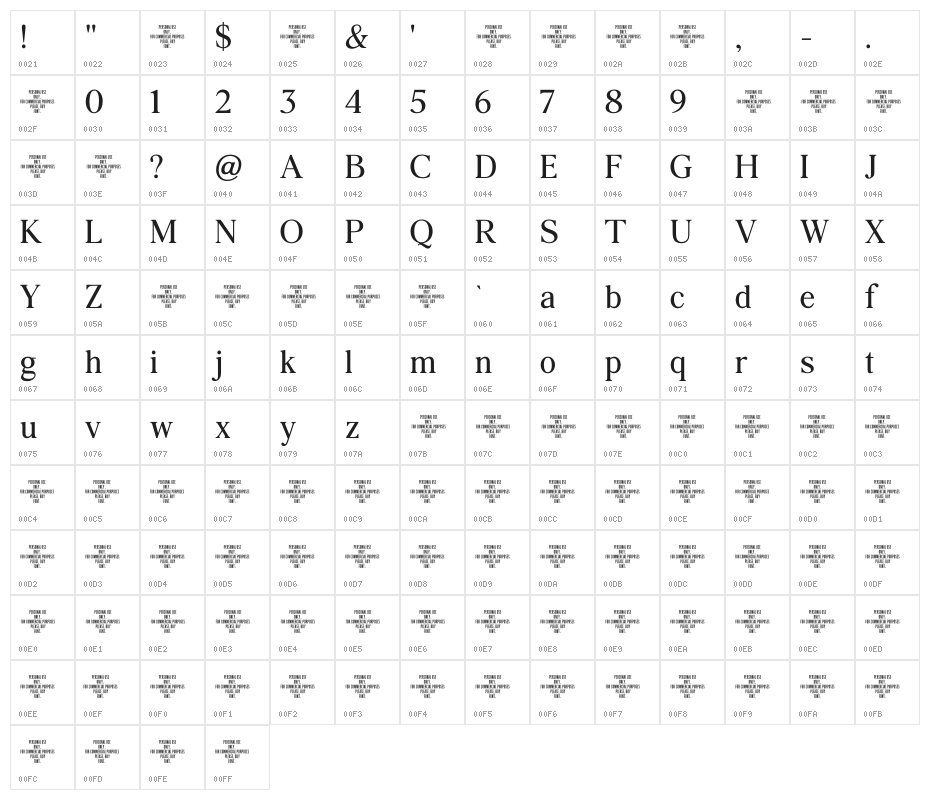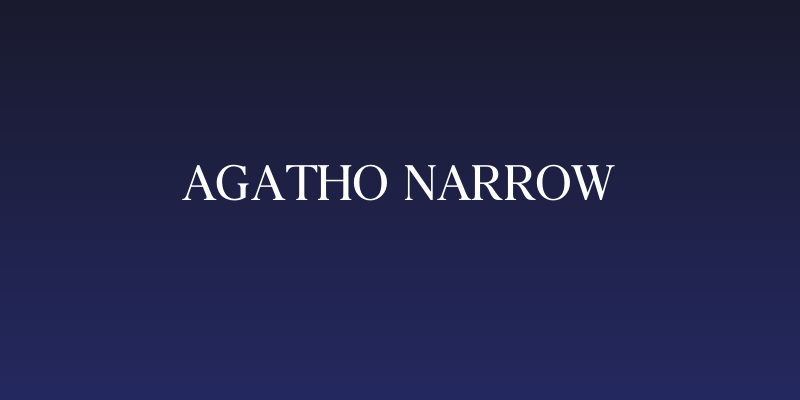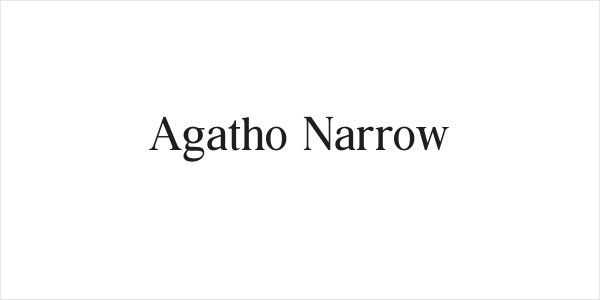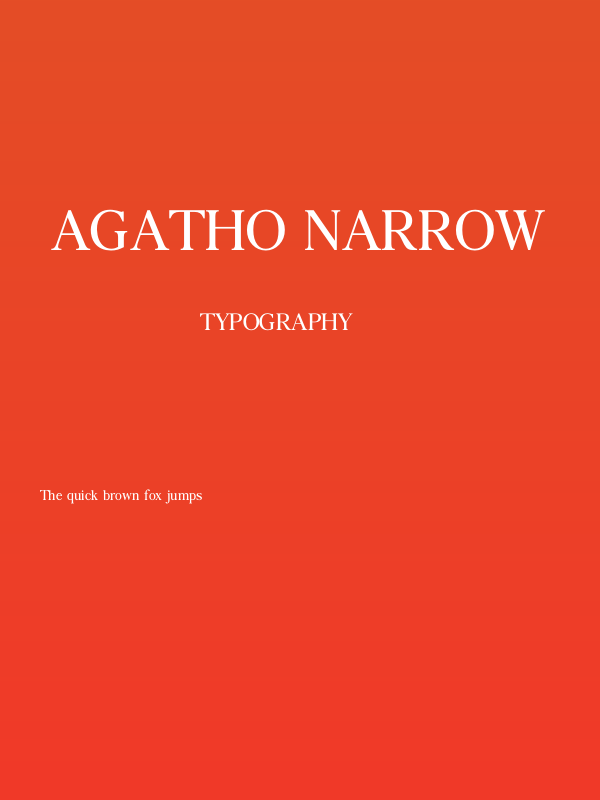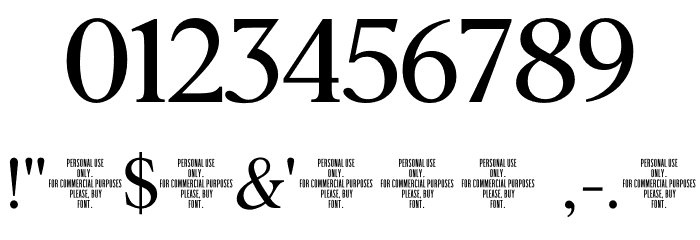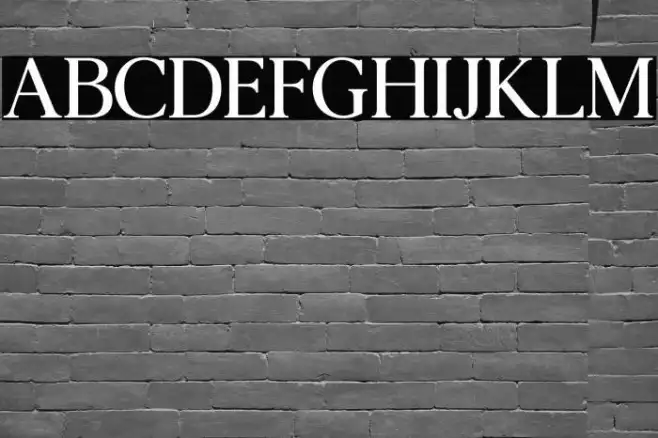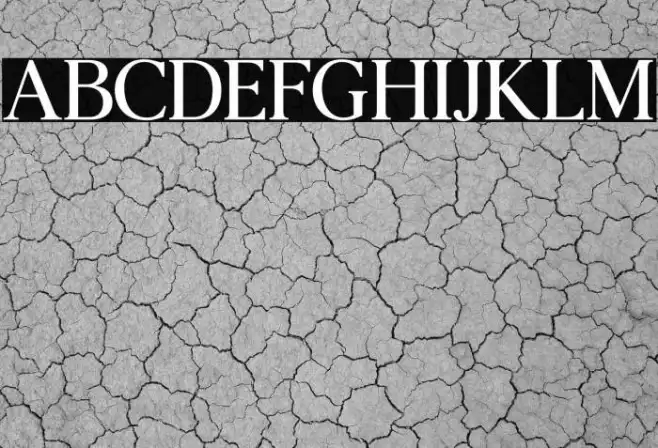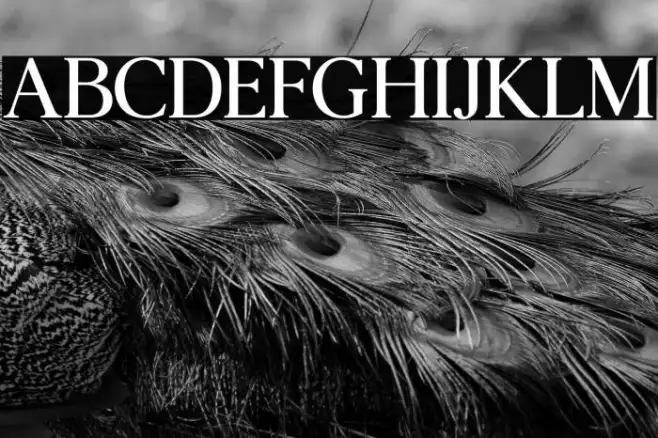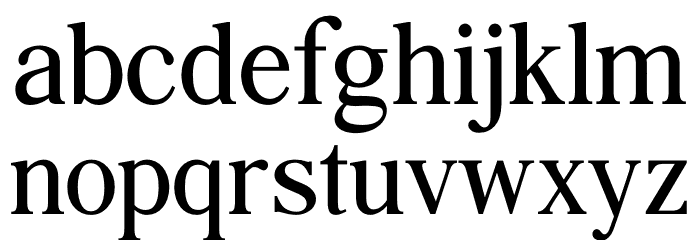
Agatho Narrow Font
Agatho Narrow Description
This font features a classic serif style with a narrow width, giving it a refined and elegant appearance. The uppercase letters are tall and slightly condensed, while the lowercase letters maintain a consistent height, contributing to a harmonious look. The numerals are proportionate and blend seamlessly with the alphabetic characters. The font's design includes subtle variations in stroke thickness, providing a medium contrast that enhances readability. Special characters are well-integrated, maintaining the overall aesthetic. This font is suitable for projects that require a sophisticated and timeless feel.
| Proposed Projects | Ideal for book covers, editorial design, formal invitations, and branding projects that require a touch of sophistication. |